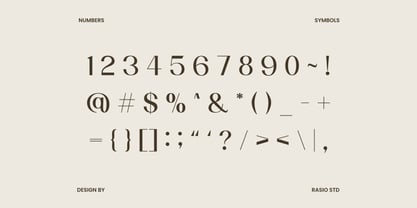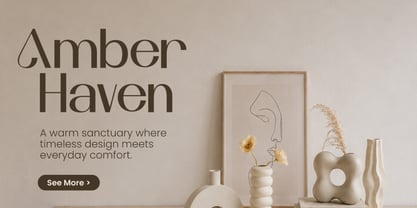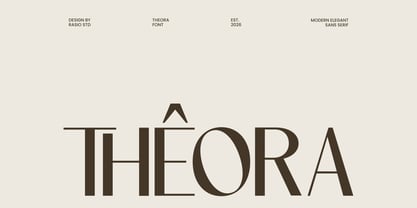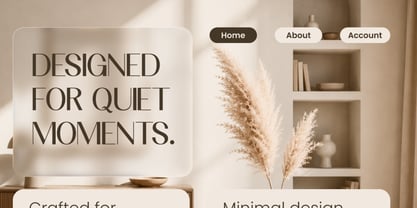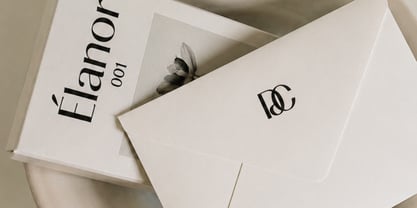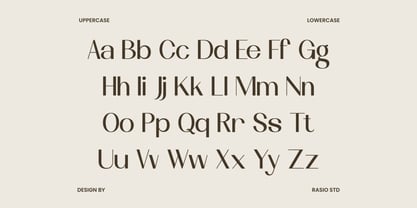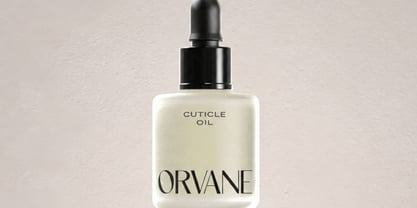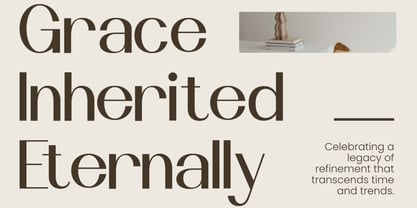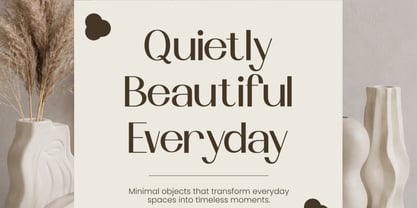
Theora
by Rasio Studio
The Theora Font Family was designed by Fajar Indra and published by Rasio Studio. Theora contains 1 styles. More about this family
Theora is a refined contemporary typeface that combines geometric precision with graceful elegance. Distinguished by clean high-contrast construction, elongated proportions, and delicately balanced letterforms, it creates a sophisticated visual rhythm that feels modern, luxurious, and effortlessly timeless. Its distinctive character details, subtle stroke variations, and generous spacing produce typography with exceptional clarity while preserving a unique editorial personality suited for premium creative work.
Relevance and Use Case is perfect for premium branding projects that require a clean, sophisticated, and contemporary typographic voice. Its elegant proportions and refined geometric structure make it an excellent choice for luxury brand identities, corporate communications, editorial publications, fashion campaigns, premium packaging, website design, creative portfolios, architectural presentations, hospitality branding, and marketing materials where modern elegance and readability are equally important.